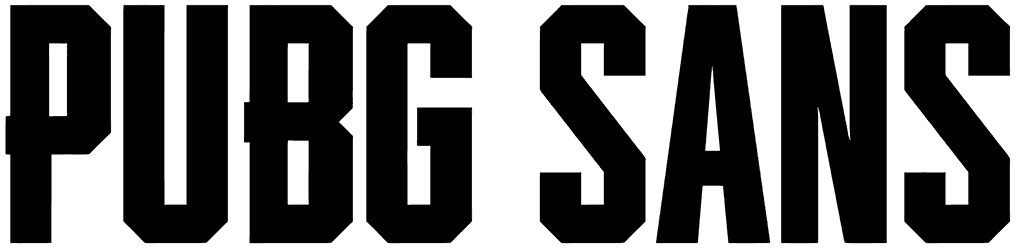
PUBG Sans Font
Unleash battle-ready style with PUBG Sans, the font inspired by the iconic PUBG gaming experience! Designed for gamers, streamers, and creators, this sleek and bold typeface brings the energy of the battlefield to your d…
Unleash battle-ready style with PUBG Sans, the font inspired by the iconic PUBG gaming experience! Designed for gamers, streamers, and creators, this sleek and bold typeface brings the energy of the battlefield to your designs. Perfect for logos, posters, thumbnails, and merchandise, PUBG Sans adds a fierce, modern edge that captures the heart of the popular game. Level up your visual identity and make your content drop-in worthy with this standout gaming font! Download now and play with style.